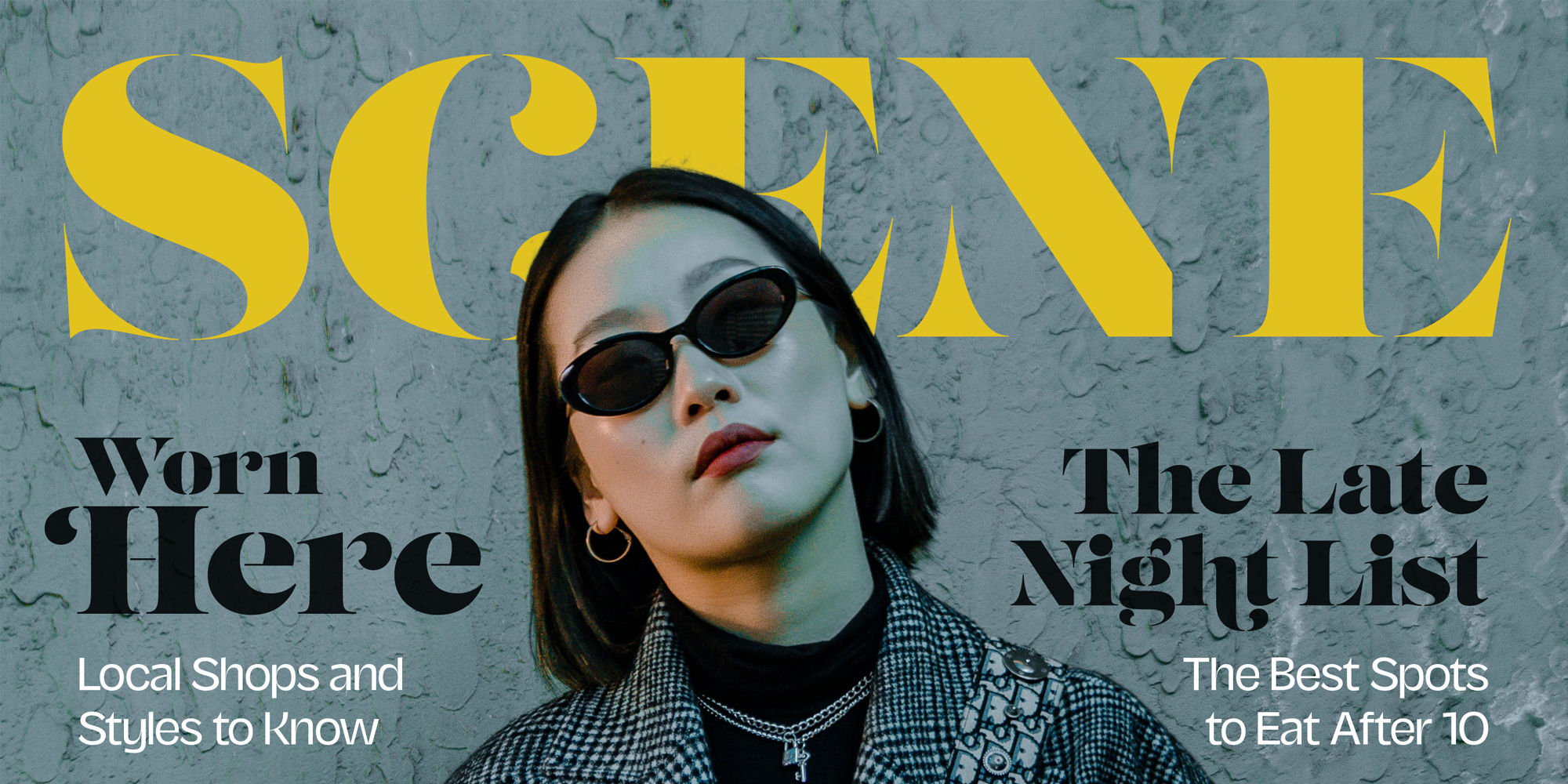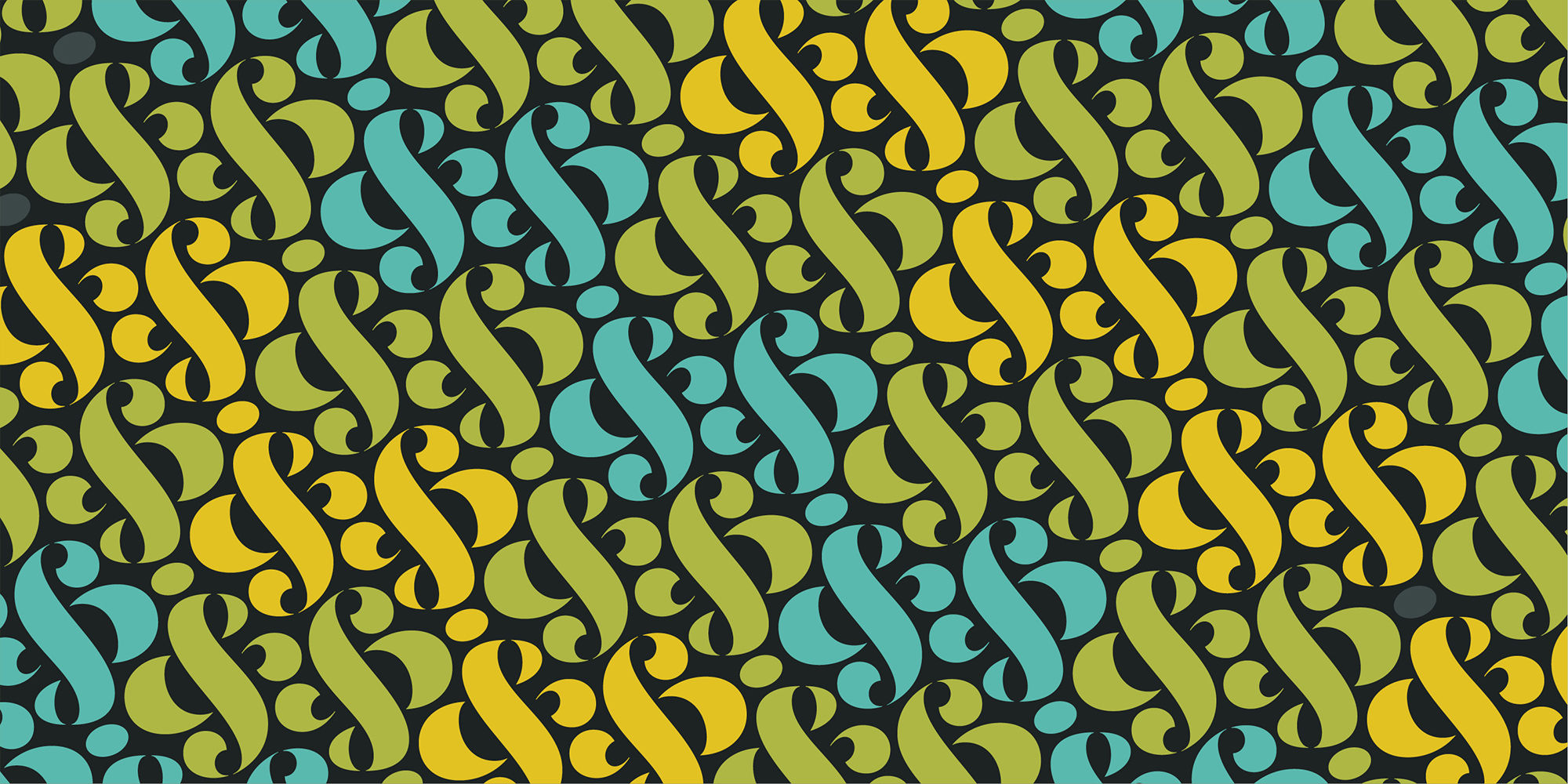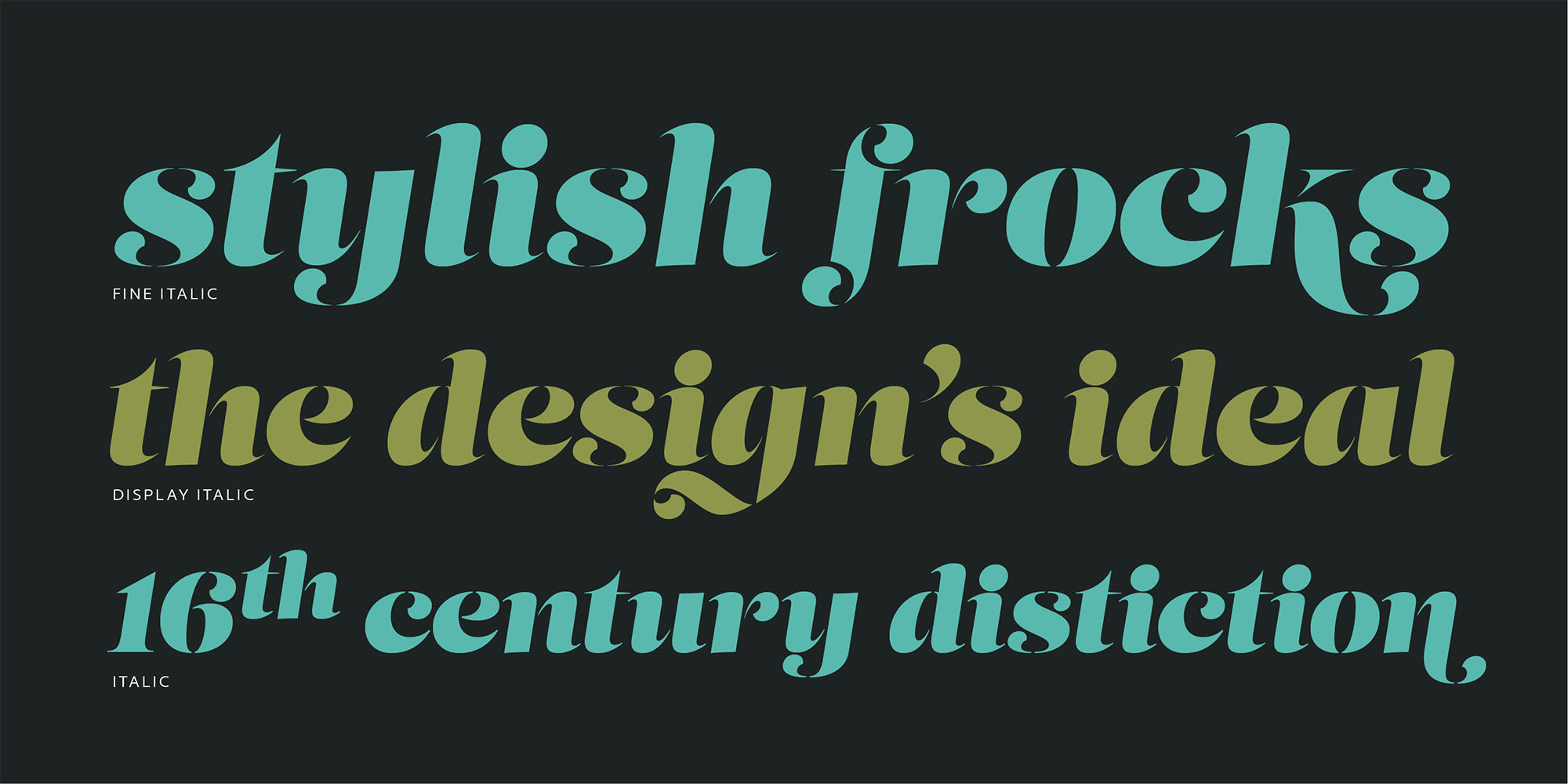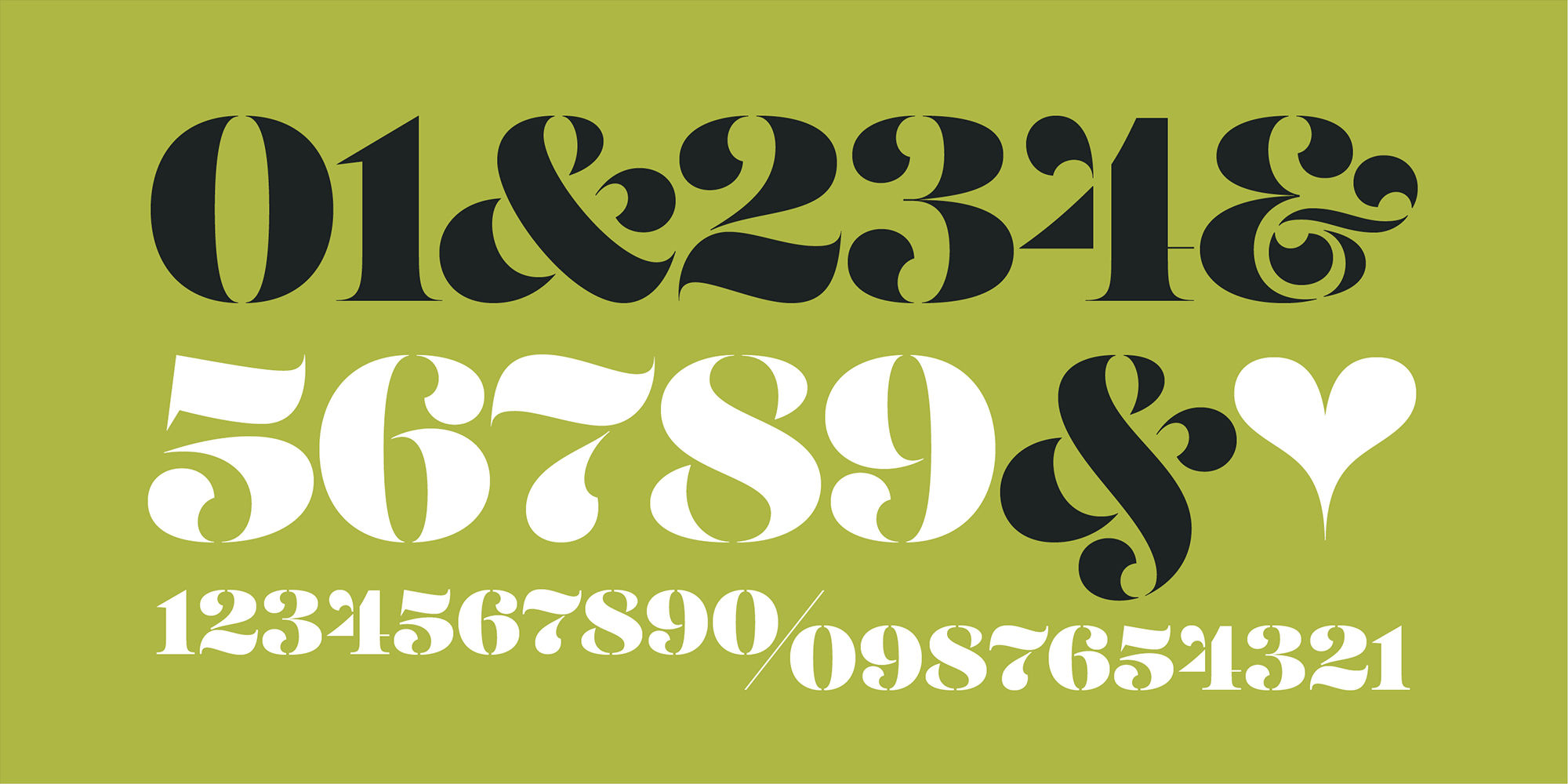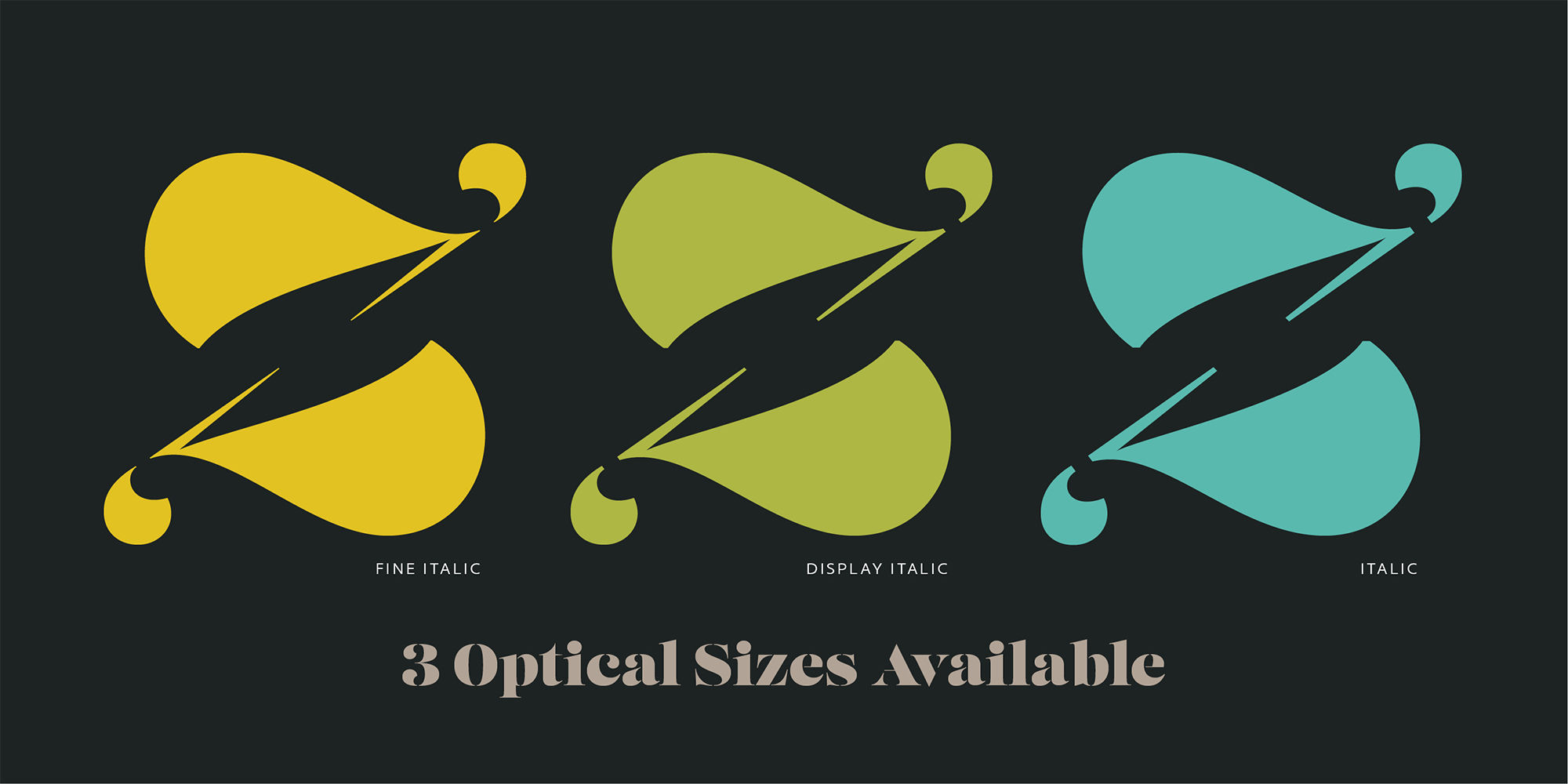
Lust Stencil
FineFine ItalicDisplayDisplay ItalicRegularItalic
fi fl
Standard Ligaturesliga
K R Z &
Swashswsh
K R
Titling Alternatestitl
12345/67890
Fractionsfrac
2nd 3rd 4th
Ordinalsordn
A B C R
Stylistic Set 1ss01
When you hear that name, you likely ask yourself, ‘why?!’ I did too, but the number of requests could not be ignored. Once I finally decided to move forward with it, the only way to solve the offering would be to adhere to the same theme of indulgence, I planned for the same number of optical weights AND Italics. Yeah, italic stencils… ok, why not? It’s not a new concept. One thing to note and a creative liberty I assumed during the design. Lust Stencil would not be just a redaction or removal of stress to produce a quick stencil. To do that, would just be a cheap solution. Strokes had to resolve themselves correctly and/or uniquely to the concept of the stencil format. And, it had to be heftier. For it it to look correctly, it needed about 8% additional mass to the strokes for it to retain the effervescent flow of the curves and the resolute scalloped lachrymals.
The Lust Collection is the culmination of 5 years of exploration and development, and I am very excited to share it with everyone. When the original Lust was first conceived in 2010 and released a year and half later, I had planned for a Script and a Sans to accompany it. The Script was released about a year later, but I paused the Sans. The primary reason was the amount of feedback and requests I was receiving for alternate versions, expansions, and ‘hey, have you considered making?’ and so on. I listen to my customers and what they are needing… and besides, I was stalling with the Sans. Like Optima and other earlier high-contrast sans, they are difficult to deliver responsibly without suffering from ill-conceived excess or timidity. The new Lust Collection aggregates all of that past customer feedback and distills it into 6 separate families, each adhering to the original Lust precept of exercises in indulgence and each based in large part on the original 2010 exemplars produced for Lust. I just hate that it took so long to deliver, but better right, than rushed, I imagine.